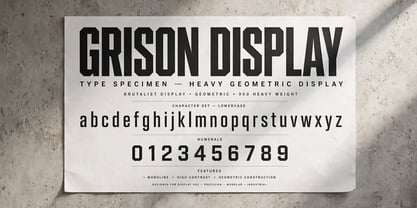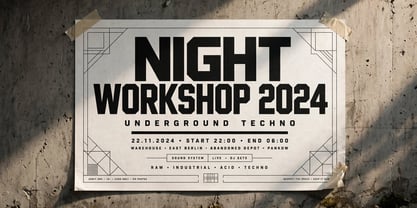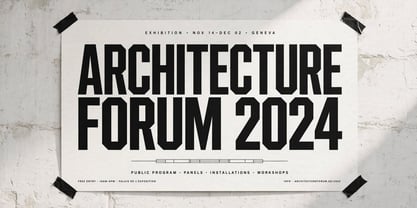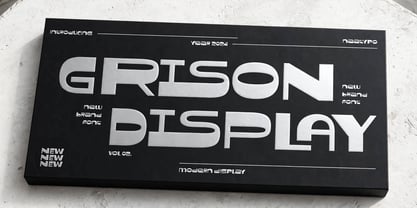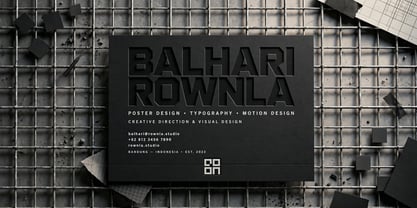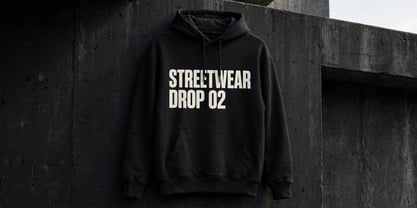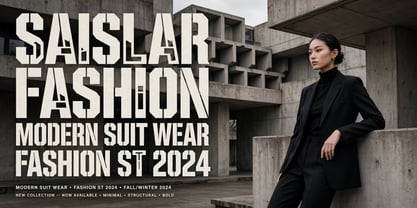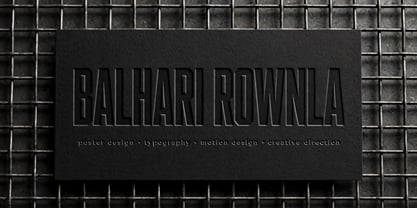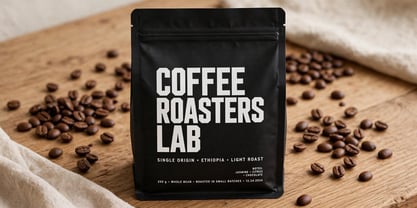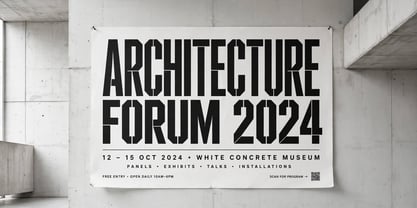
Grison Display
by Naatypo
The Grison Display Font Family was designed by Kurnia Elis Setyorini and published by Naatypo. Grison Display contains 1 styles.
Introducing Grison Display; your perfect ally in concocting an engaging design narrative. Explore its unique style, seemingly friendly appeal, and stand-out character. Envisage a breath of fresh vibrancy within your creations with the distinctiveness of this font. Ideally suited to headline or sub-head texts, it seamlessly integrates within your design context to command an unapologetic attention. With Grison Display, illuminate your creative projects, blending the perfect mix of edginess and warmth. This is the power you need to make your message leap off the page and resonate.
Designers: Kurnia Elis Setyorini
Publisher: Naatypo
Foundry: Naatypo
Design Owner: Naatypo